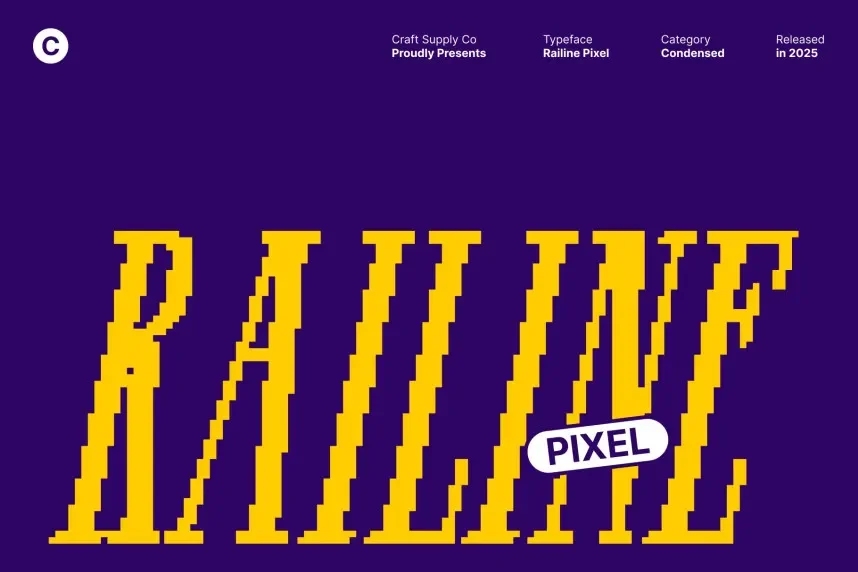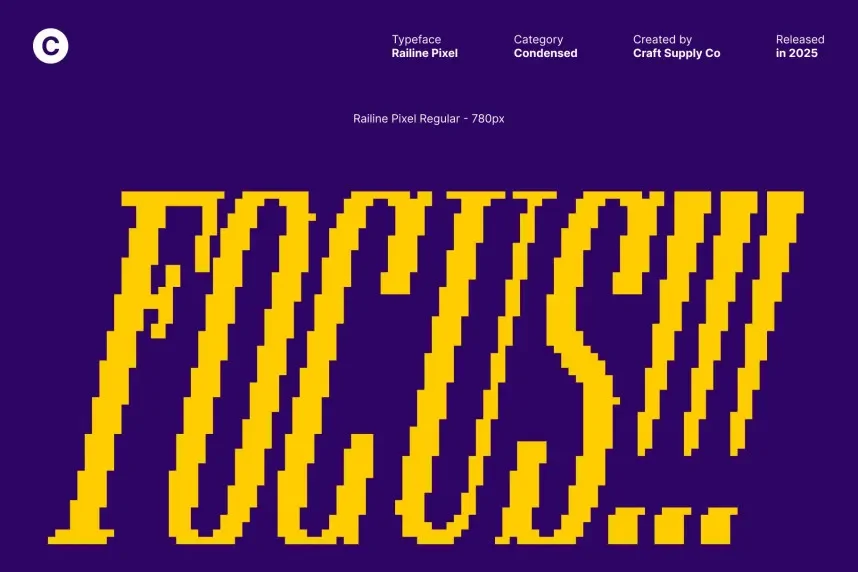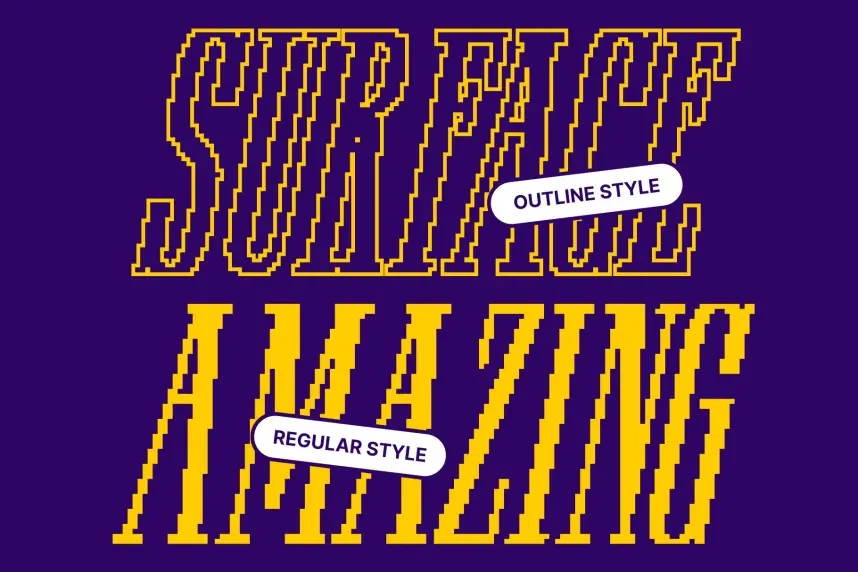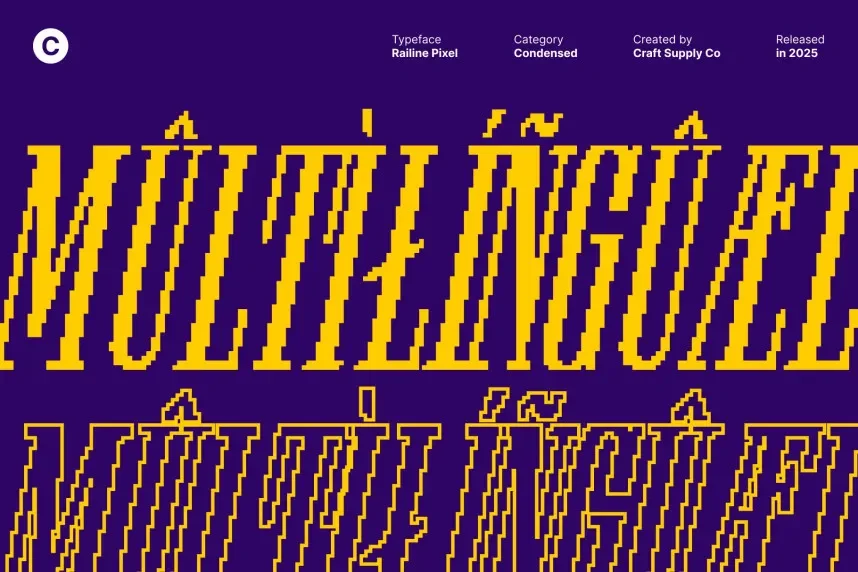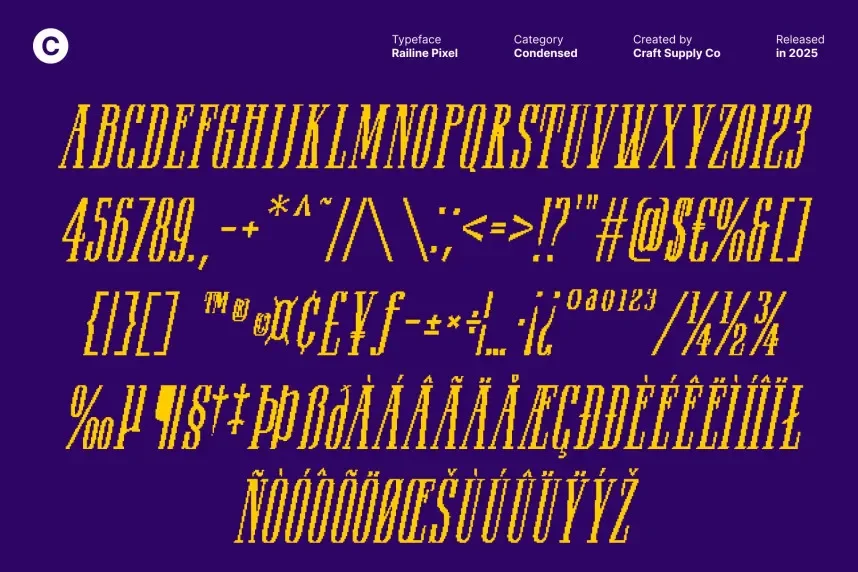
Railine Pixel Font addresses spacing and alignment problems in digital interfaces built on strict grids. Pixel typography requires predictable geometry.
This font is a linear pixel typeface, featuring narrow letterforms and consistent stroke placement. The design supports compact layouts without sacrificing legibility.